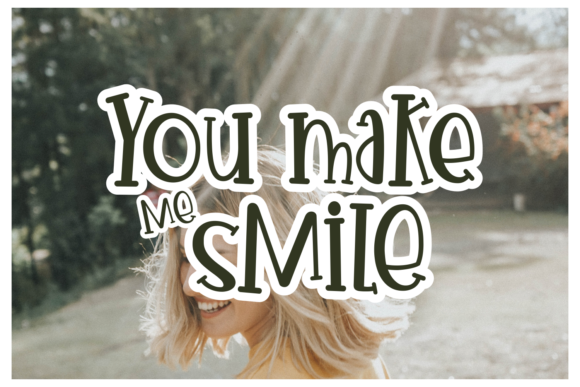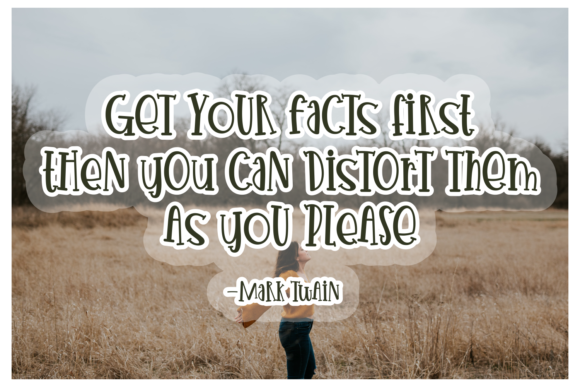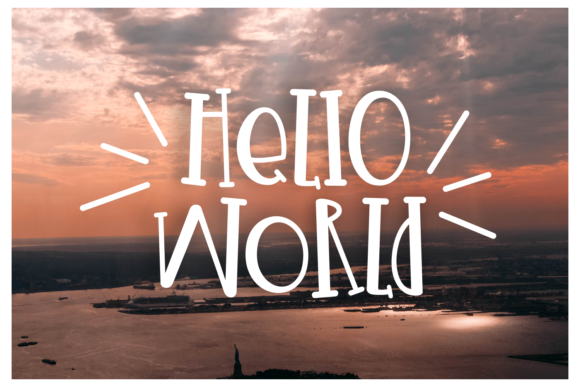
Unlocking the Magic of Happy Winnie Font
Have you ever been brainstorming a new design project and suddenly, a spark of creativity strikes? You envision a playful, whimsical font that perfectly captures the essence of your idea. That’s where Happy Winnie Font comes in – a unique, sweet, and quirky display font that will elevate your designs to the next level.
Whether you’re a seasoned designer or just starting out, Happy Winnie Font is a valuable addition to your toolkit. Its playful personality is contagious, and its versatility makes it suitable for a wide range of projects, from children’s books to social media graphics.
With Happy Winnie Font, you’ll be able to add a touch of whimsy and charm to your designs, setting them apart from the ordinary and making them truly unforgettable. So why settle for ordinary when you can have extraordinary? Discover the magic of Happy Winnie Font and unlock your full creative potential.
Happy Winnie Font Key Features
- Unique Characteristics: The font features a playful, handwritten style with a mix of rounded and pointed letterforms, giving it a friendly and approachable feel.
Happy Winnie Font Review
Overall, I think Happy Winnie Font is a cute and playful addition to any design project. It’s perfect for creating a lighthearted and cheerful atmosphere, especially when it comes to children’s books, greeting cards, or other designs that require a whimsical touch.
- Unique and expressive characters that bring a smile to the viewer’s face
- Works well in a variety of contexts, from headings to body text
- Highly customizable, allowing for easy adjustments to size, color, and spacing
- May not be suitable for professional or formal designs, as it can come across as too playful or childish
- Some characters may not render correctly in certain font sizes or line heights
- Lack of a bold weight, which can make it difficult to create clear hierarchy in text-heavy designs
While Happy Winnie Font has its limitations, it’s a great choice for designers looking to add some personality to their projects. With a little creativity and experimentation, you can create some truly unique and eye-catching designs that showcase the font’s playful charm.
The Happy Winnie Font is perfect for creating playful and whimsical designs, such as:
- Stationery and greeting cards.
Remember to adjust the font size and style to ensure legibility and readability in your design.